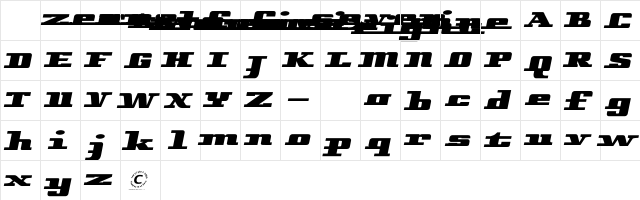
Remarcle Right Font Preview
Remarcle Right
Remarcle Right Font Details
| Designer | Tup Wanders |
Design Context for Remarcle Typeface
Remarcle is a composed and adaptable typeface that performs quietly and consistently across a wide range of design contexts.